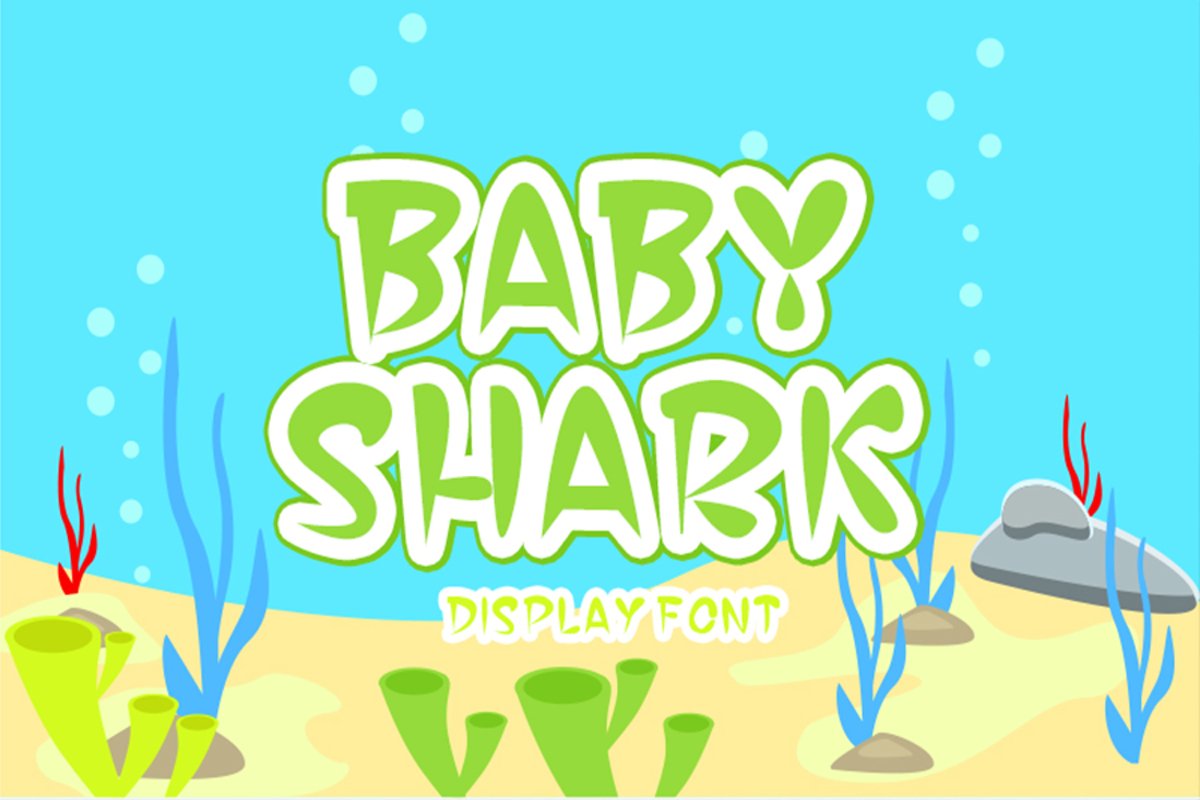
Baby Shark
BABY SHARK
Baby Shark is a cute and casual display font with an incredibly friendly feel. Whether you’re looking for fonts for Instagram or calligraphy scripts for DIY projects, this font will turn any creative idea into a true piece of art!